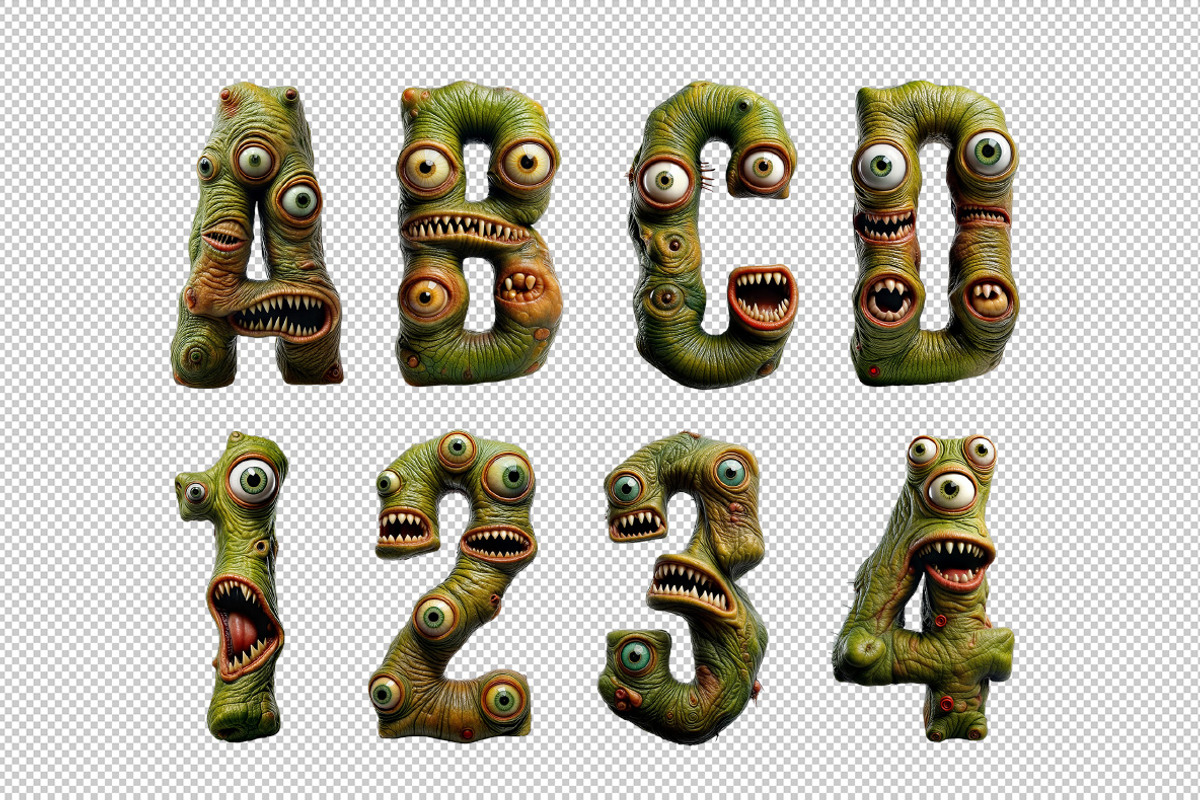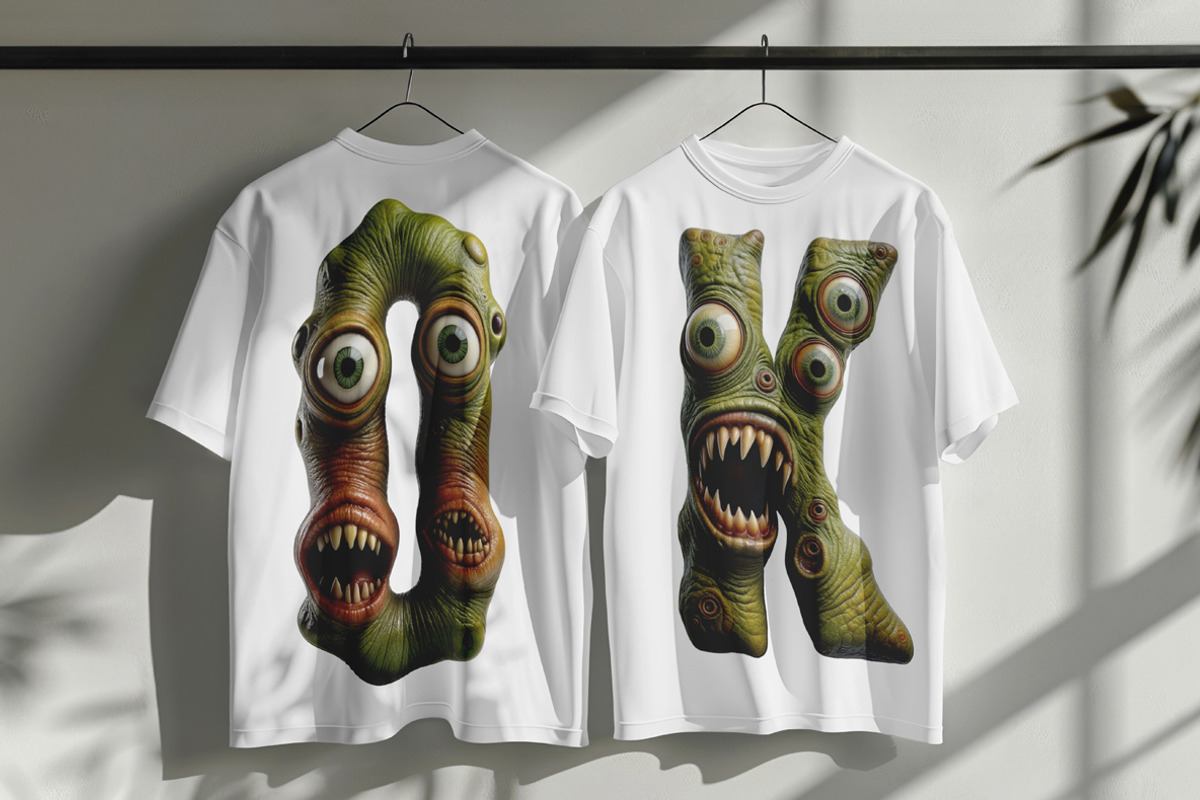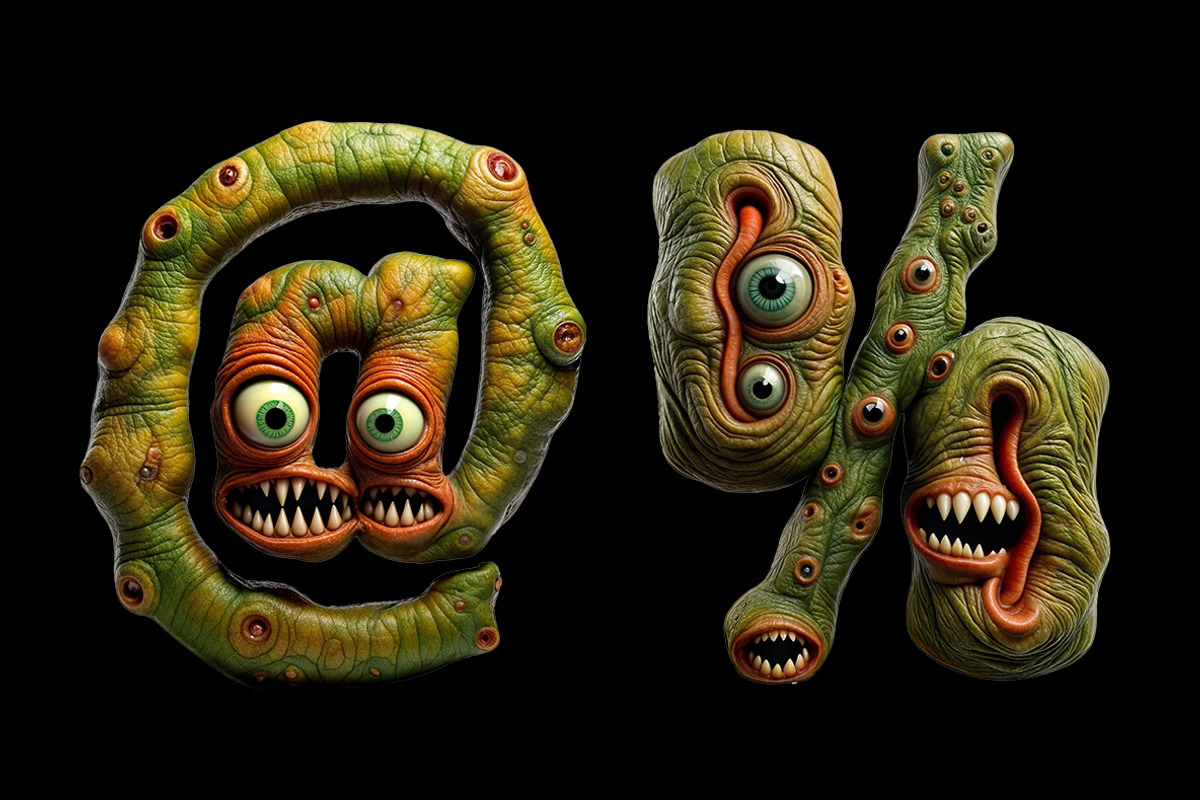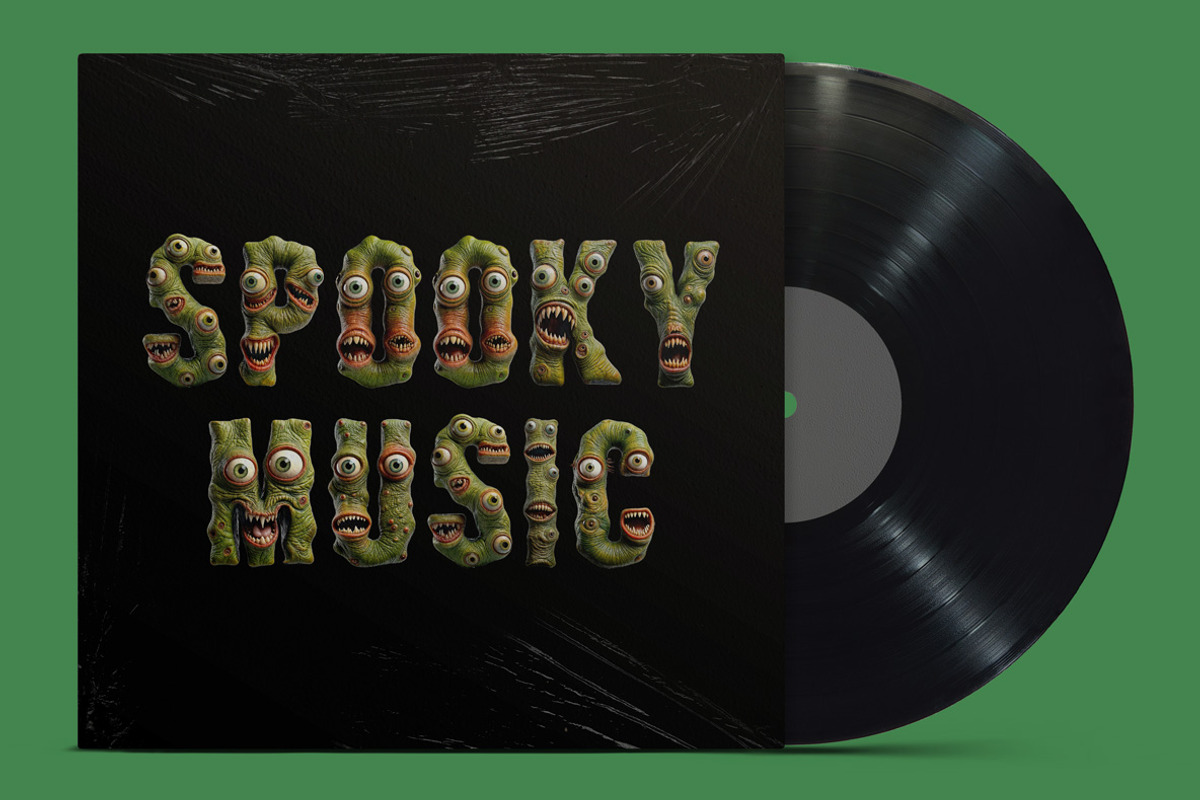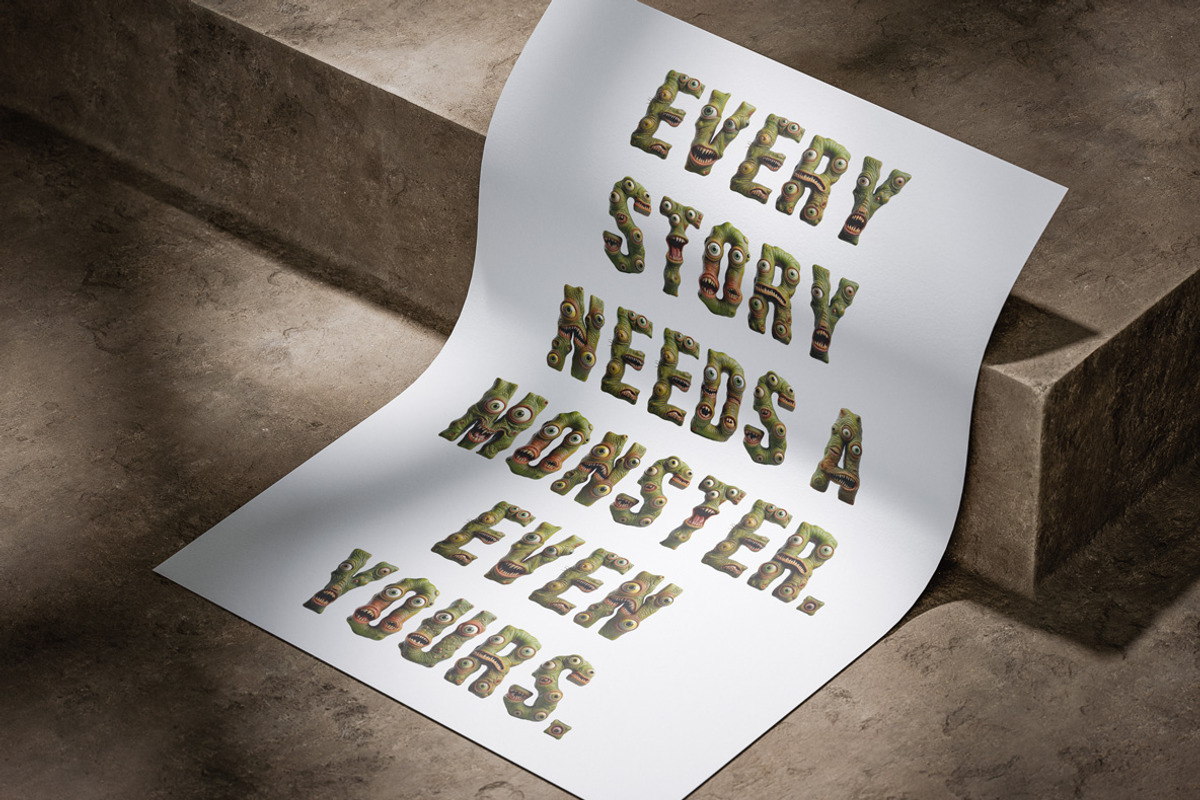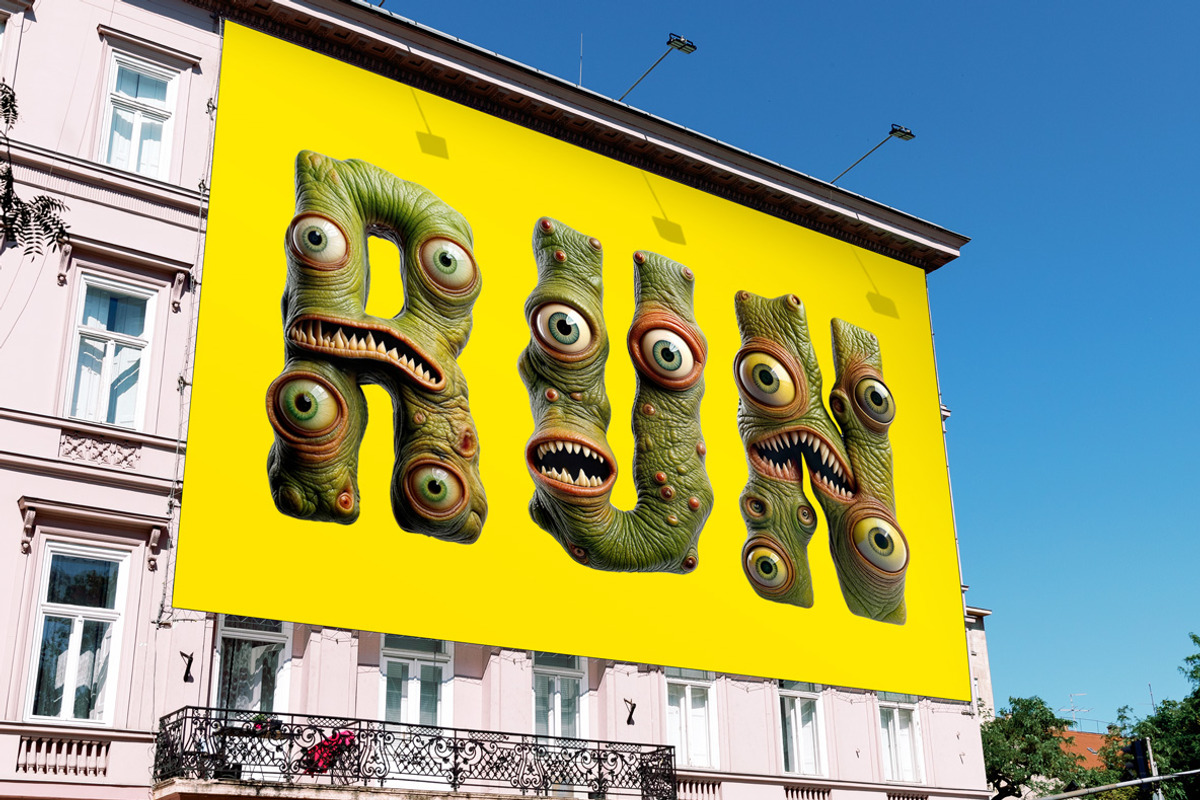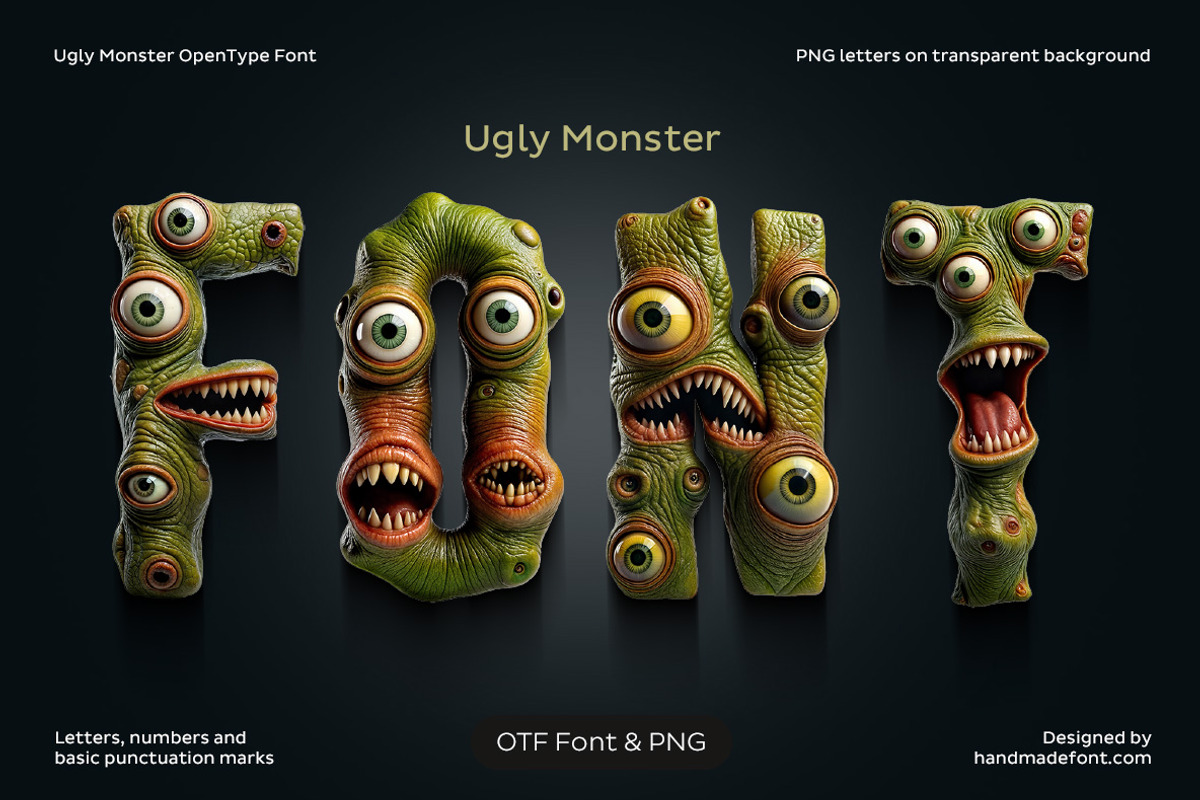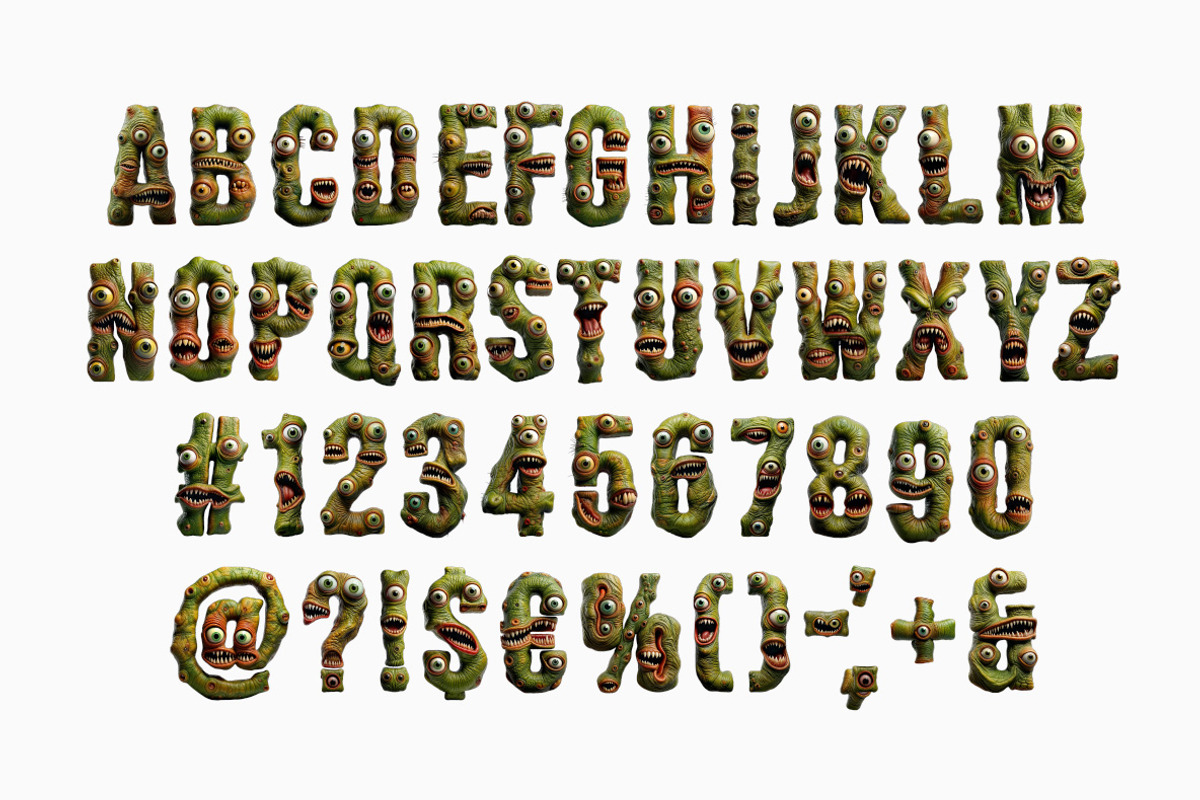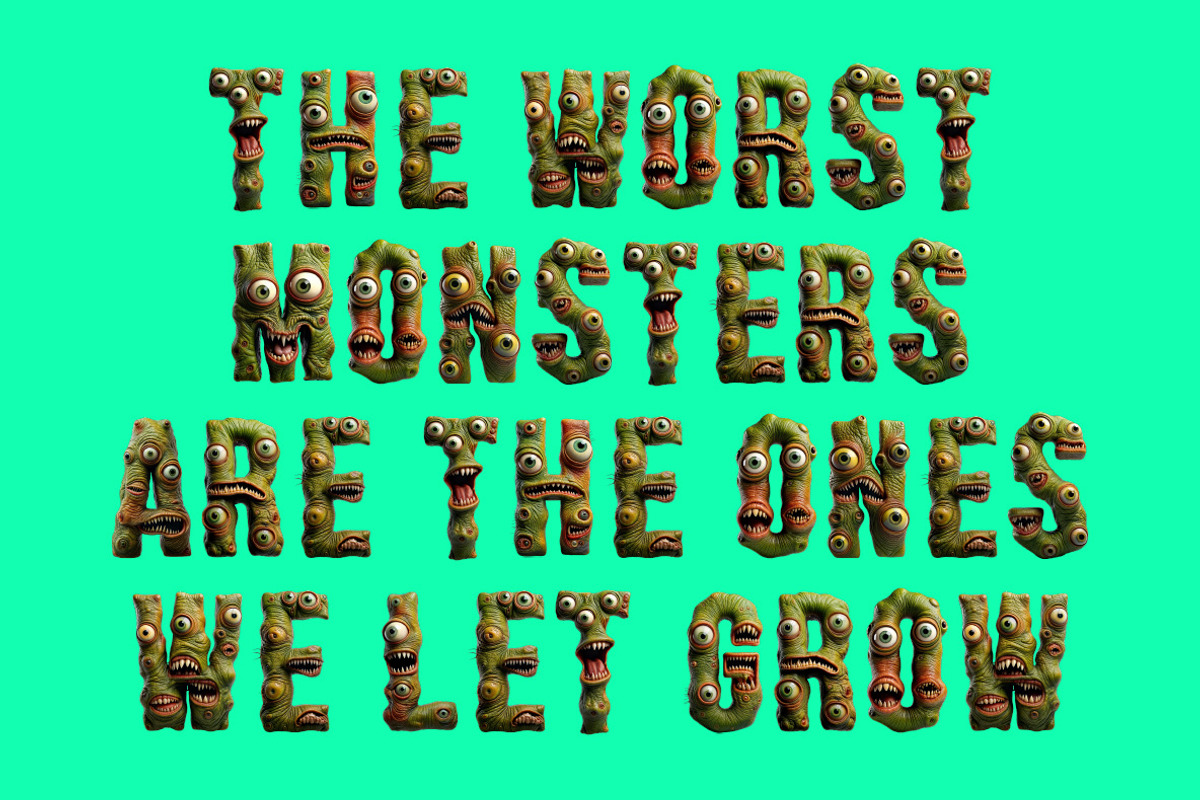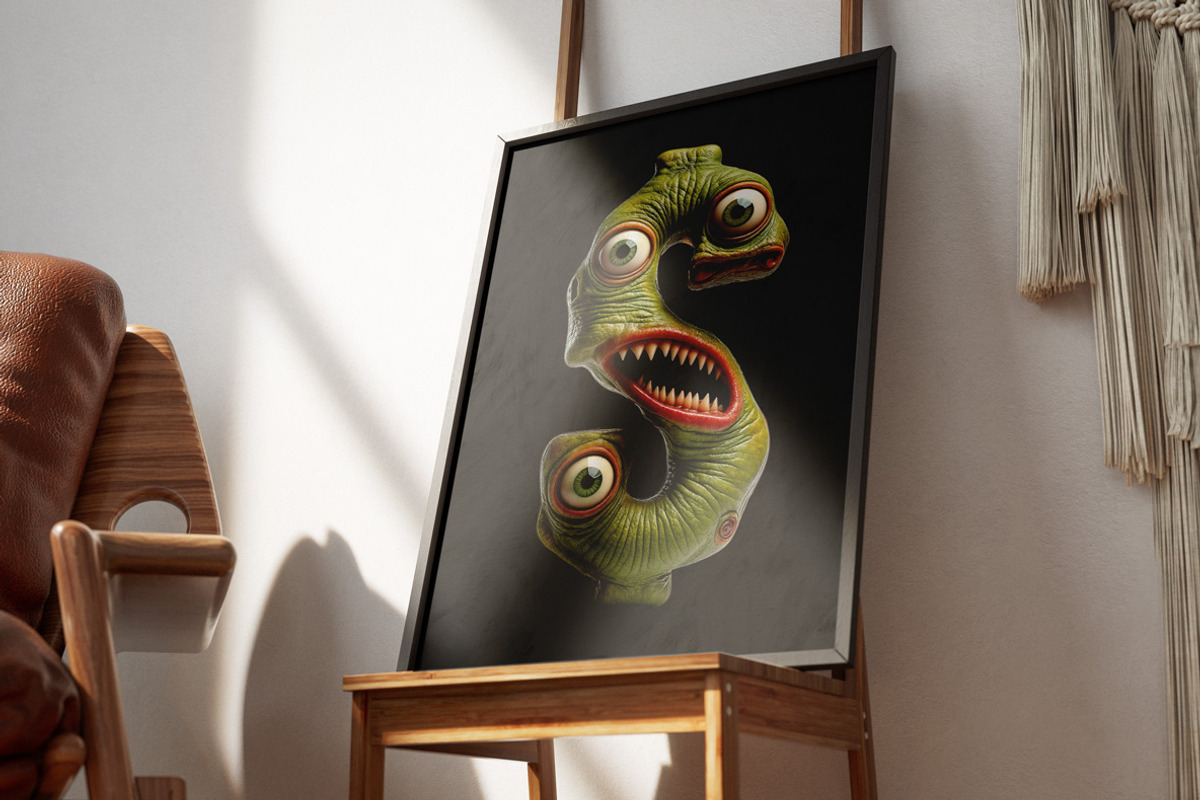
Ugly Monster Font
The Ugly Monster Font is a playful and terrifying display typeface that turns every letter into a grotesque, cartoonish creature. With bulging eyeballs, gnarled green skin, sharp teeth, and exaggerated features, this font brings a unique blend of horror and humor. Perfect for Halloween designs, spooky posters, or anything that needs a creepy but fun twist, each character is packed with personality and texture. The 3D monster style makes it pop off the page, capturing attention instantly. Ugly Monster Font is ideal for creative projects that embrace the weird, wild, and wonderfully ugly side of design.
- Letters : A B C D E F G H I J K L M N O P Q R S T U V W X Y Z
- Numbers : 0 1 2 3 4 5 6 7 8 9
- Others : ! ? - . ' $ € % & # @